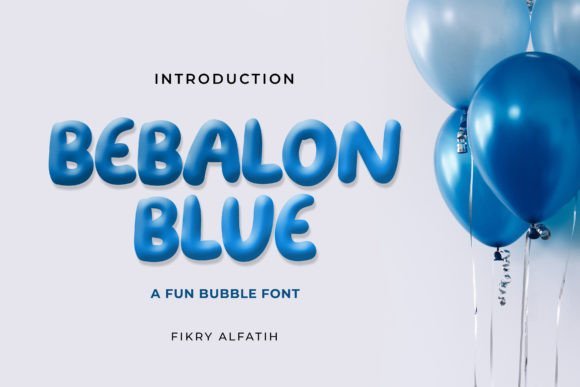
Get Ready to Pop with Bebalon Blue Font
Have you ever found yourself doodling in the margins of a notebook, creating whimsical letters and patterns with abandon? That’s exactly the kind of creative freedom that the Bebalon Blue Font embodies. This fun bubble lettering display font is all about capturing a youthful vibe and adding a playful touch to any design project.
Bebalon Blue Font is perfect for making a statement in headers, event posters, album covers, and more. Its carefree spirit and bubbly aesthetic make it an instant hit with designers looking to add some visual interest to their work. With its versatility and endless creative possibilities, Bebalon Blue Font is a valuable addition to any designer’s toolkit.
Bebalon Blue Font Key Features
- Font Family: Bebalon Blue
- Unique Characteristics: The Bebalon Blue font features a unique blend of modern and vintage elements, with a distinctive blue hue that adds a touch of sophistication and elegance to any design
- Font Style: The font is available in regular and bold styles, making it suitable for a wide range of applications, from body text to headings and titles
Bebalon Blue Font Review
As a designer, I’ve had the chance to work with Bebalon Blue Font, and here’s my honest review.
Firstly, I love the unique, hand-crafted feel of Bebalon Blue. It’s perfect for adding a touch of personality to your designs.
- Easy to read: Bebalon Blue has a clear, legible design that makes it perfect for body text.
- High-resolution support: The font looks great at various resolutions, from web to print.
- Customizable: You can easily adjust the font’s weight, style, and size to suit your needs.
While Bebalon Blue has many great features, it’s not without its limitations.
- Limited language support: The font may not be optimized for languages with complex scripts or non-Latin alphabets.
- No bold or italic styles: While the font has a range of weights, it’s lacking in bold or italic styles.
- May not work well with complex layouts: Bebalon Blue’s unique design may not be suitable for complex, multi-column layouts.
Overall, I think Bebalon Blue Font is a great choice for designers looking for a unique, hand-crafted feel. While it has some limitations, its strengths make it a valuable addition to any design arsenal.
Bebalon Blue Font is ideal for:
1. Creative and artistic designs.
2. Branding and logo design.
3. Typography-based designs.
4. Fashion and lifestyle designs.
5. Custom invitations and stationery.
Does Bebalon Blue support ligatures and contextual alternates?
Yes, Bebalon Blue includes a comprehensive set of ligatures and contextual alternates, allowing for more nuanced and elegant typography. These features can be accessed by enabling OpenType features in your design application.